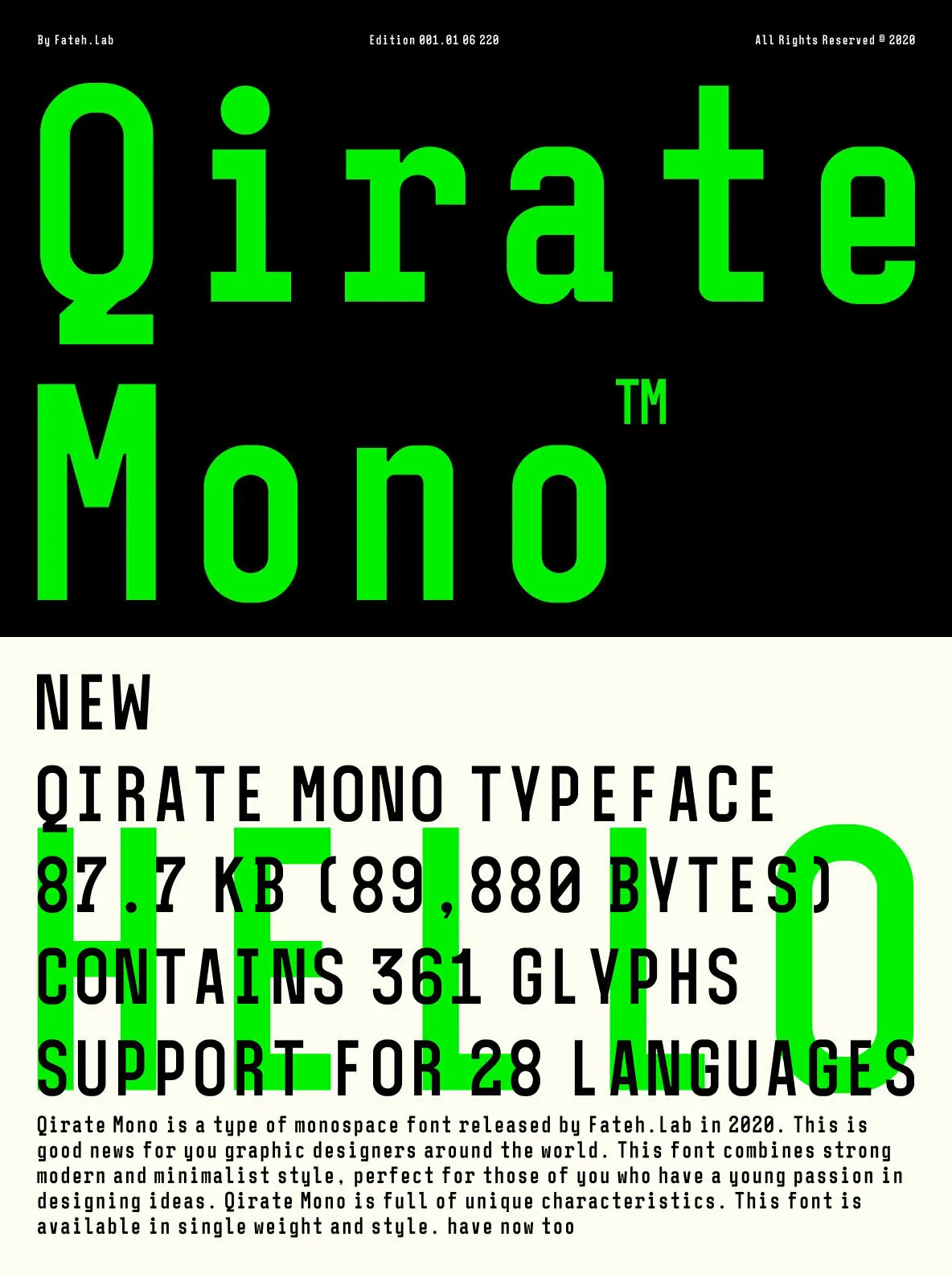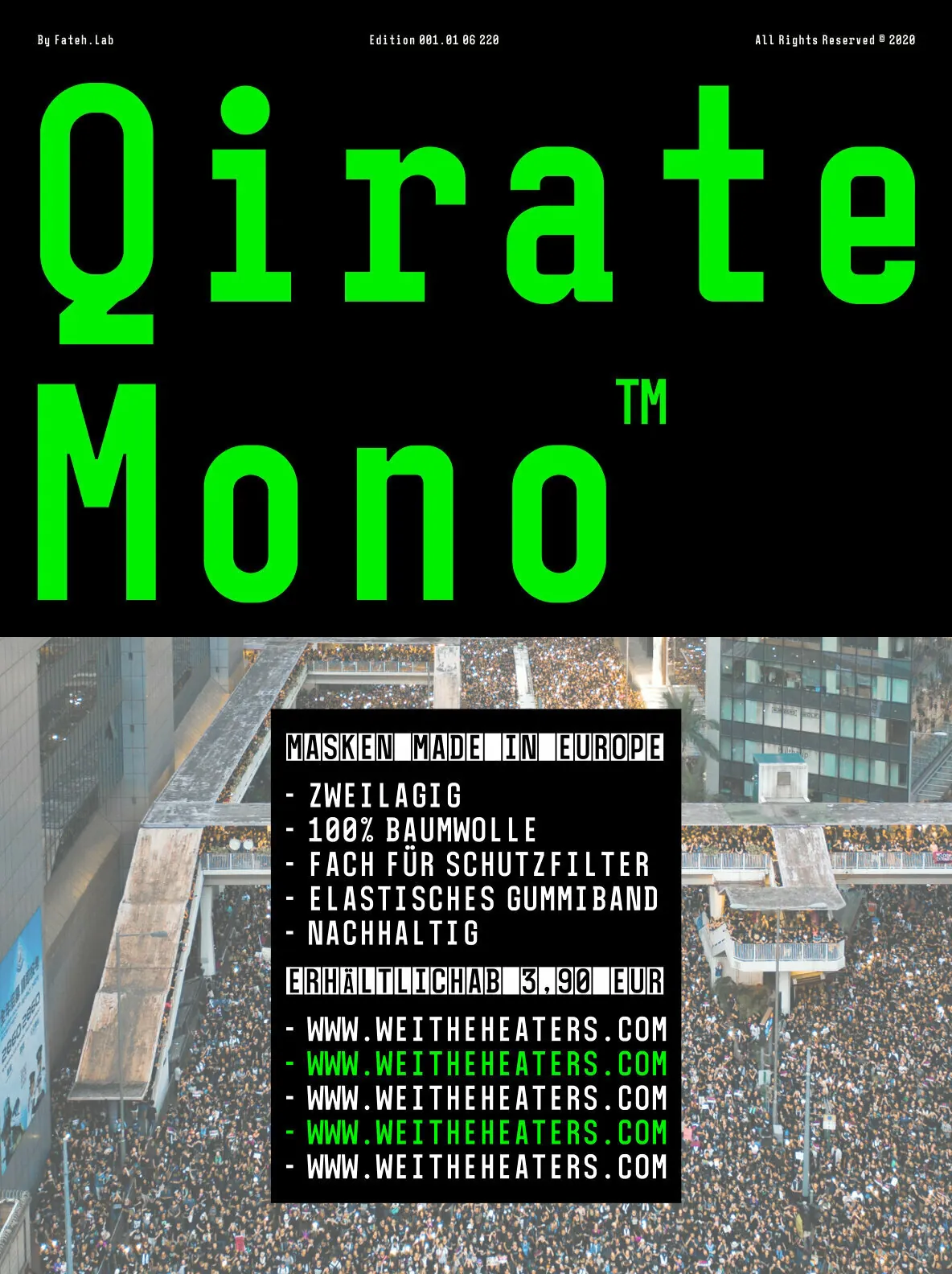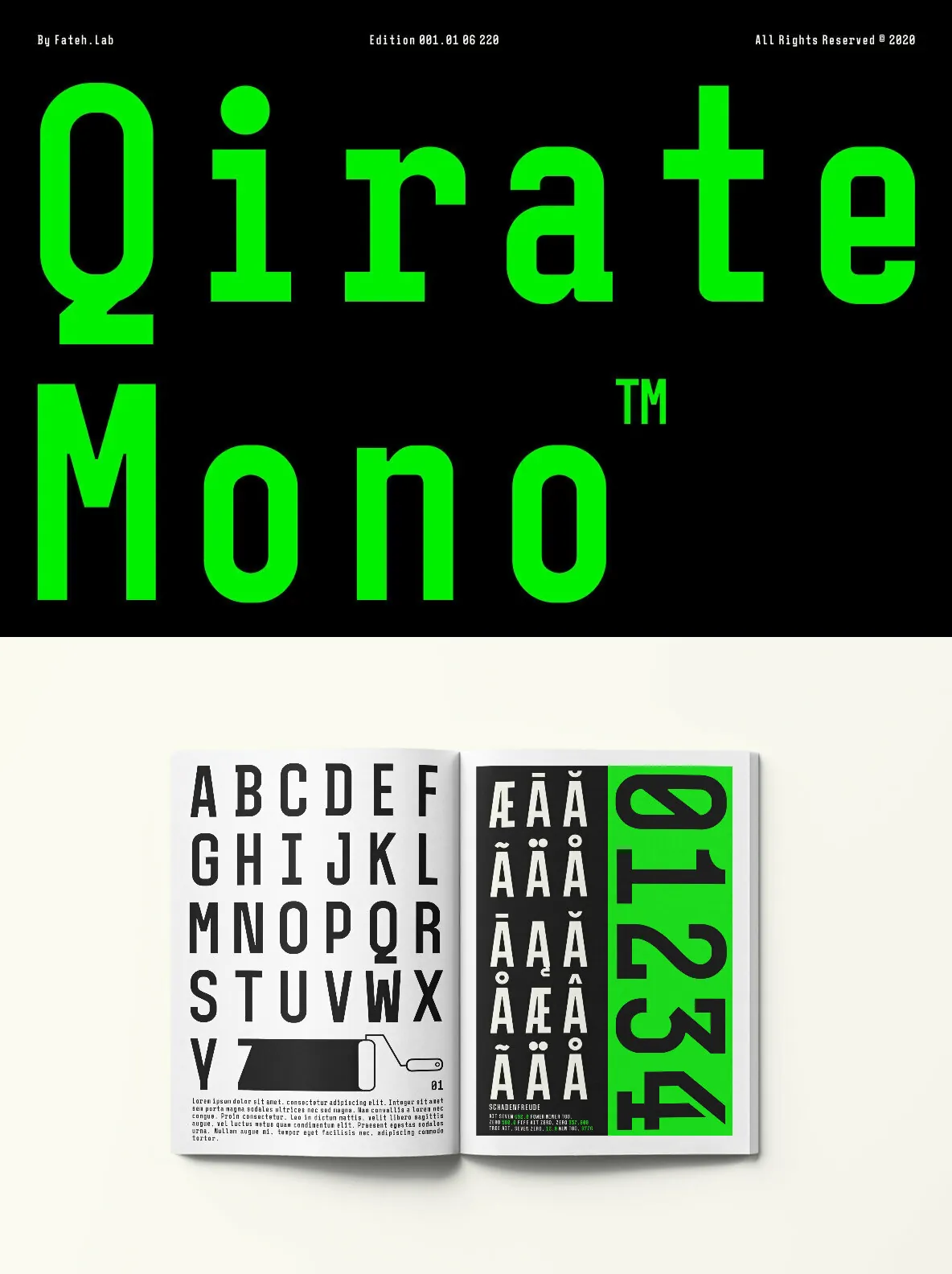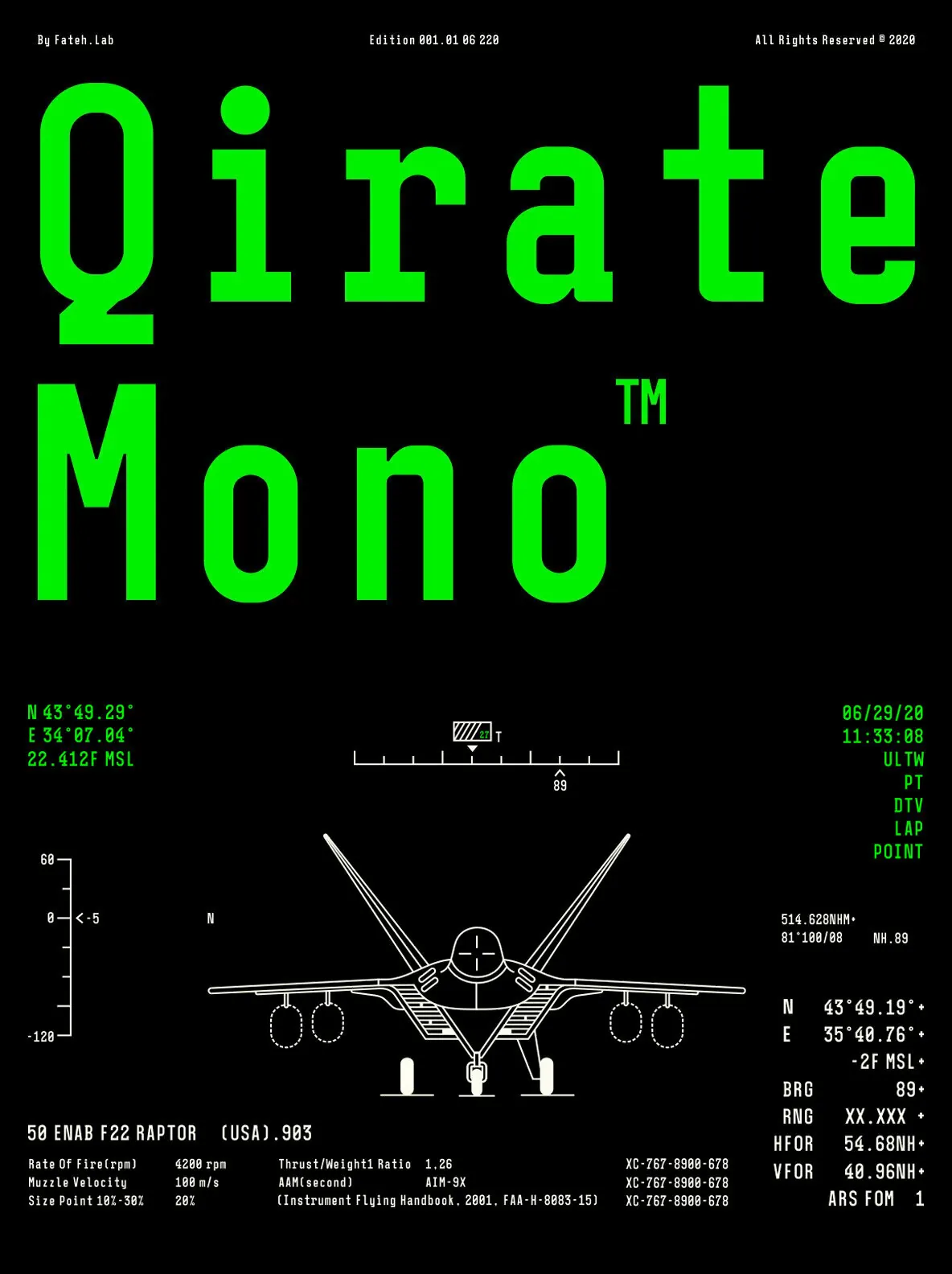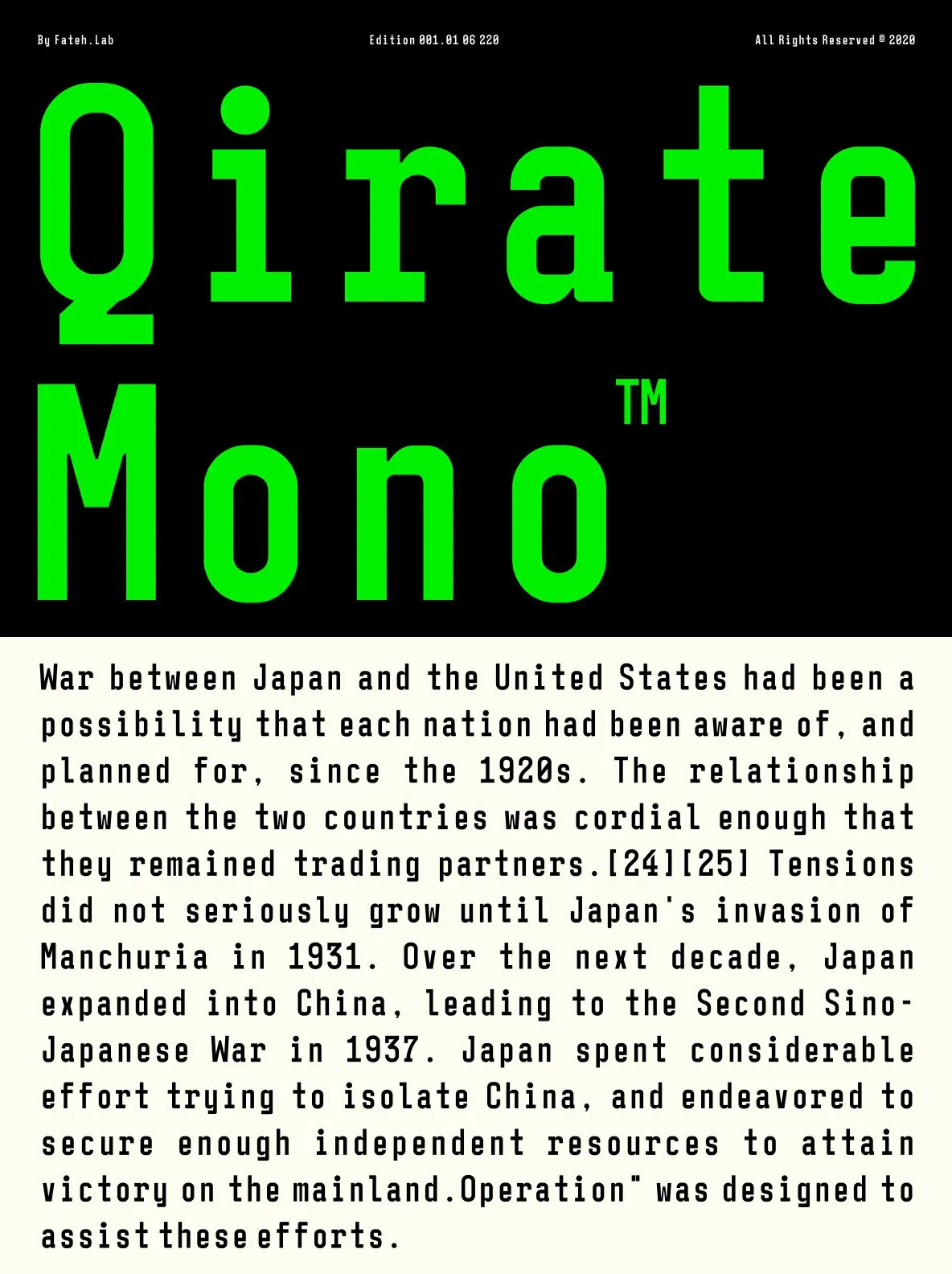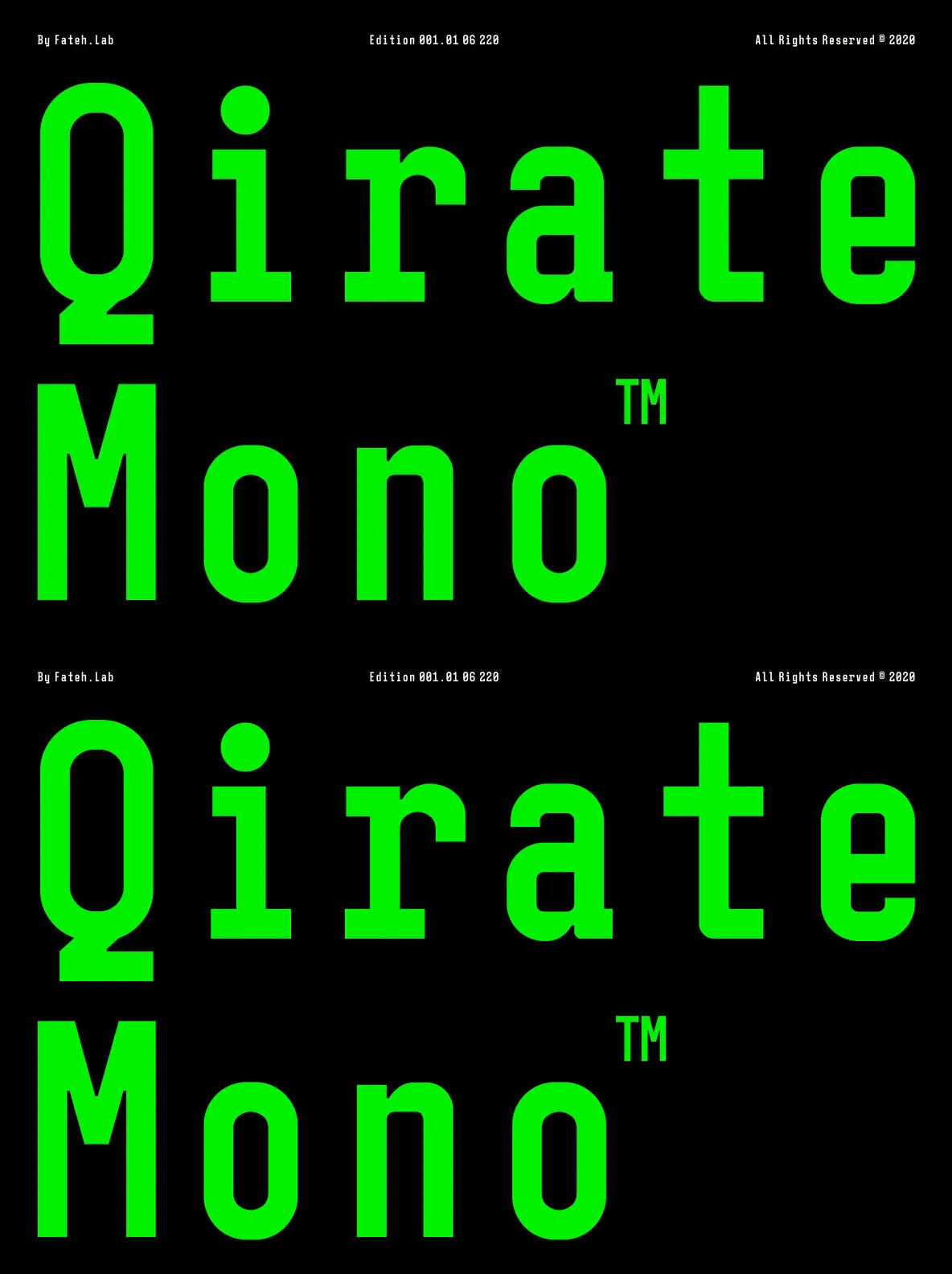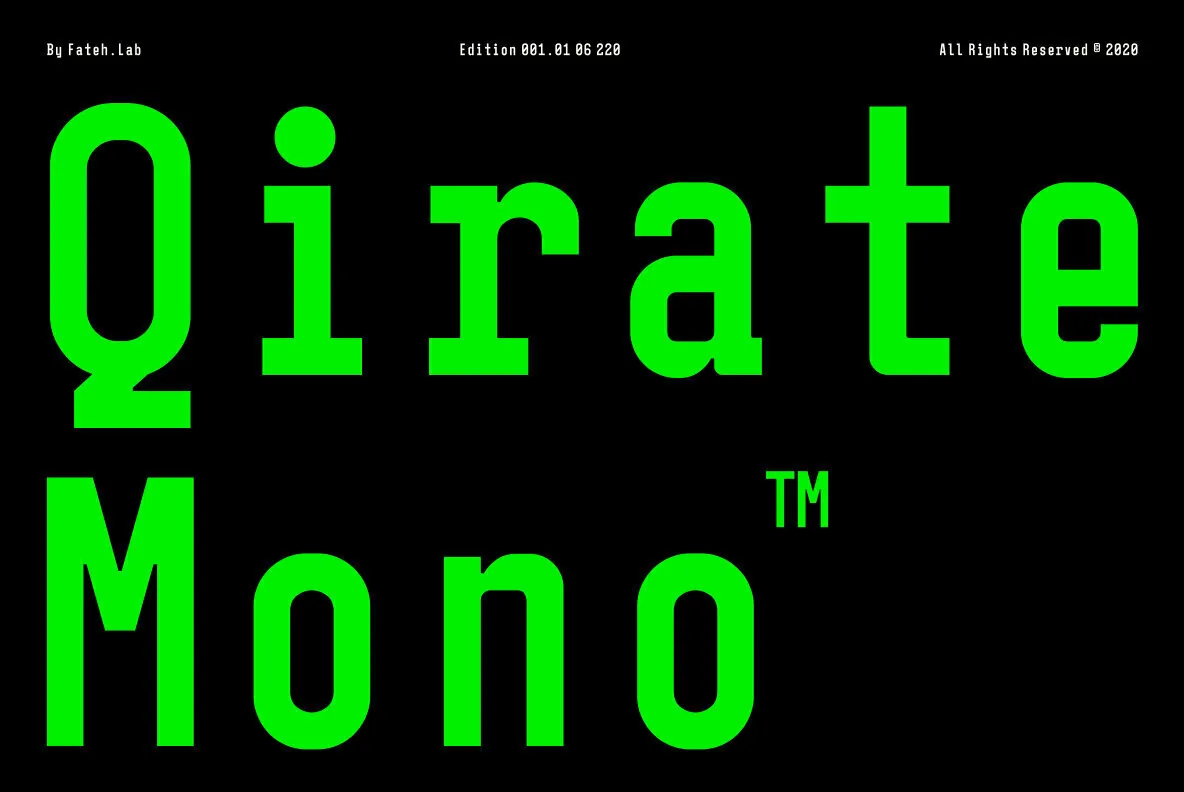
Qirate Mono: Disciplined Lines, Graphic Precision
A modern take on the classic monospaced typeface, designed to meet the needs of contemporary graphic designers. Sharp lines and a disciplined minimalist structure support work that relies on clarity and order. The distinctive aesthetic holds attention without losing legibility, making it a dependable choice for creative professionals who want originality in a controlled, structured voice.
Designed by Fateh.Lab., this single-weight font keeps spacing and rhythm consistent across layouts. Its balanced appearance helps precise visual communication, especially when clean alignment matters. The thoughtful construction appeals to designers who value subtlety in minimal design, while its strong presence fits branding systems, editorial pages, and coding environments where a clear monospace feels at home.
Features
Modern monospace structure for clarity
Minimalist design with distinctive shapes
Single weight for visual consistency
Ideal for branding, editorial, and code